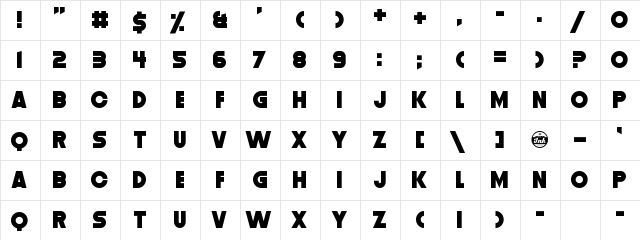
Distortion Dos Digital Regular
Design Context for Distortion Dos Digital Typeface
Distortion Dos Digital has a distinctly futuristic character, with geometric precision and clean angles that feel at home in technology, gaming, and sci-fi contexts.